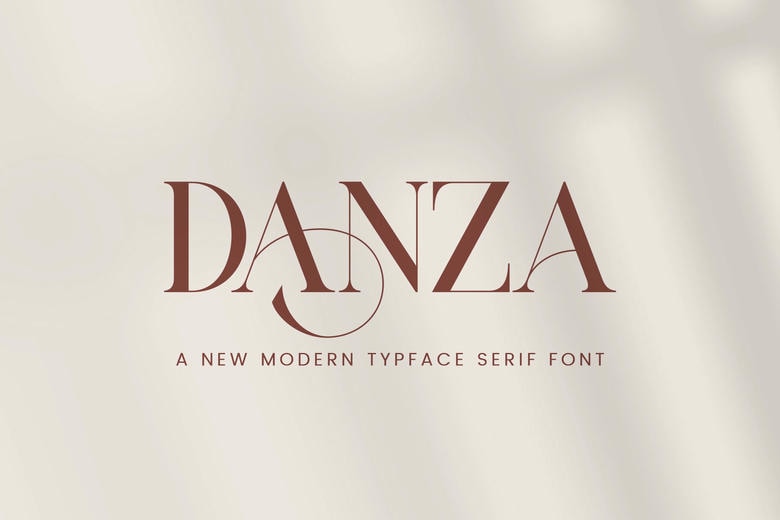
Danza Font
Danza is a modern serif typeface that has been designed with a modern and minimalist style. It’s ideal for a variety of design requirements, including logo, brochure, video and advertising branding, posters, invitations and More. This font is the ideal choice to make your designs look professional and attractive.
Danza Serif Font